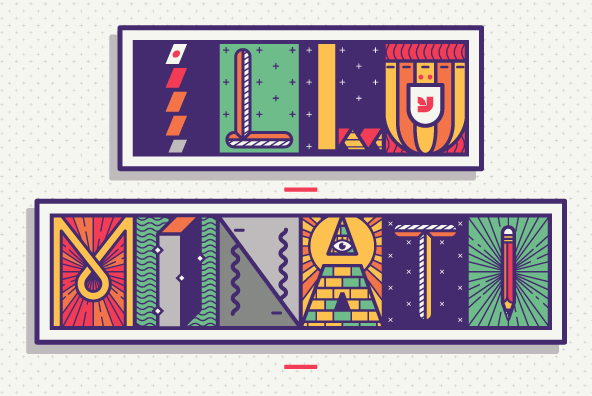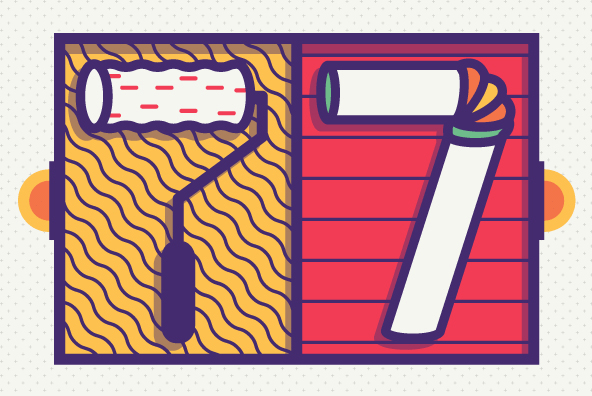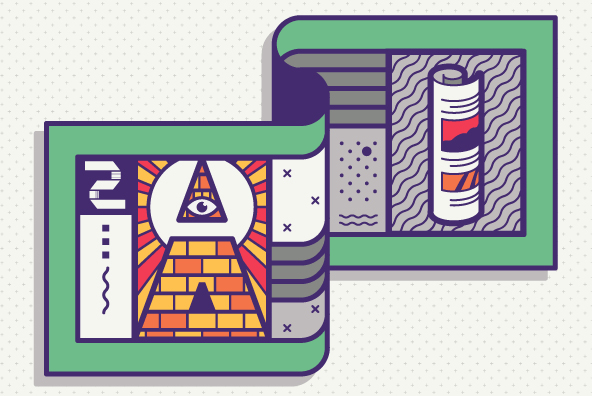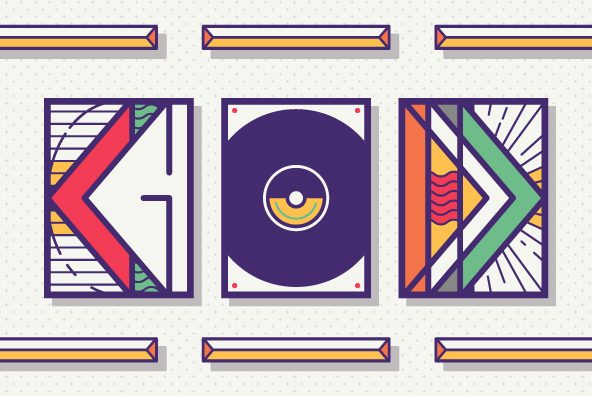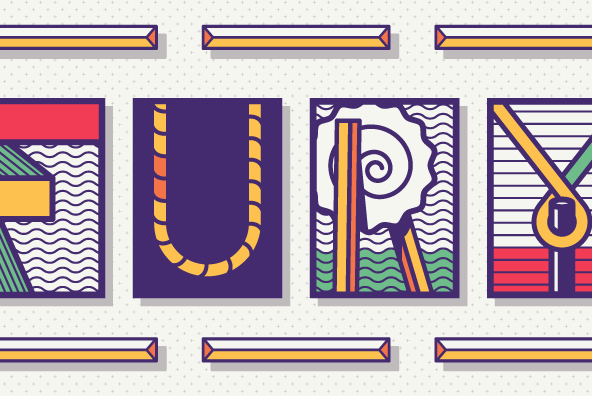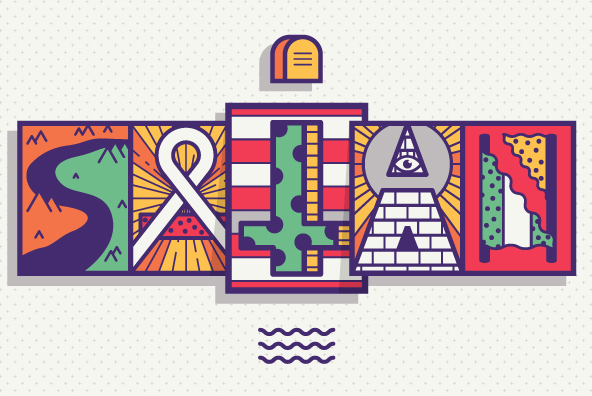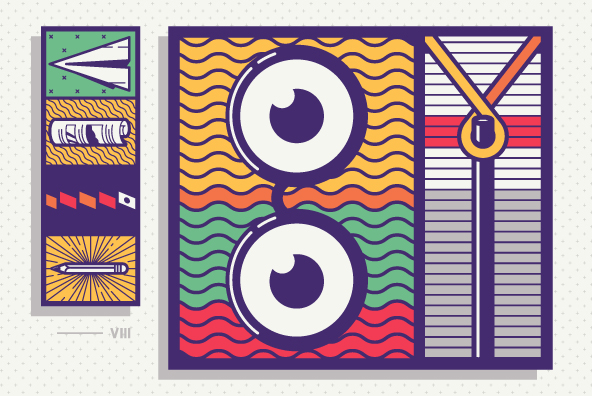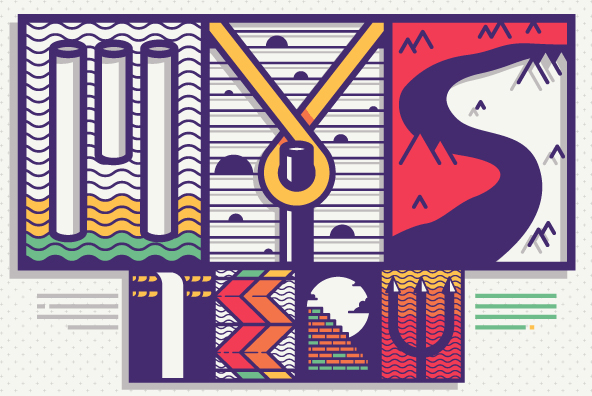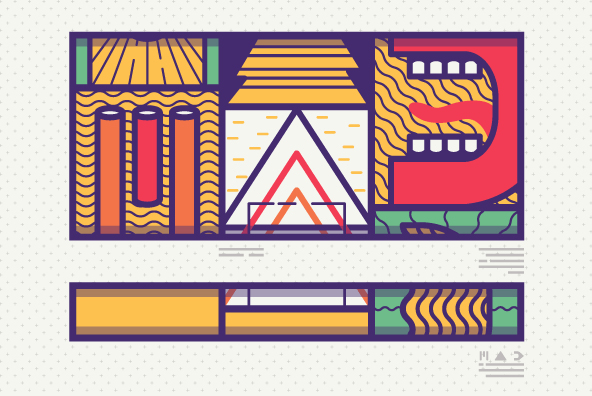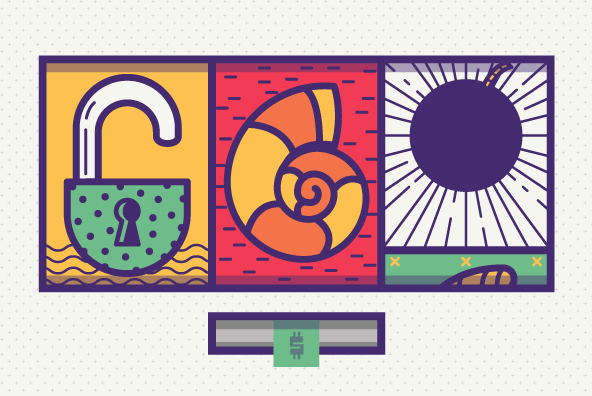
YWFT Illuminati
Font Family by YouWorkForThem
It is with this incredible display font, Initiated in the Supreme Grade, that you shall preserve the Great Doctrine. Adding these heiroglyphic sigils, suitable for the Secret Languages of the Ages, to any manuscript shall Illuminate it. Let the Brother receive the Light!
Includes OpenType alternates for each character design, resulting in double character designs in each style. Use the type tester with "Stylistic Alternates" turned on to see all the options.